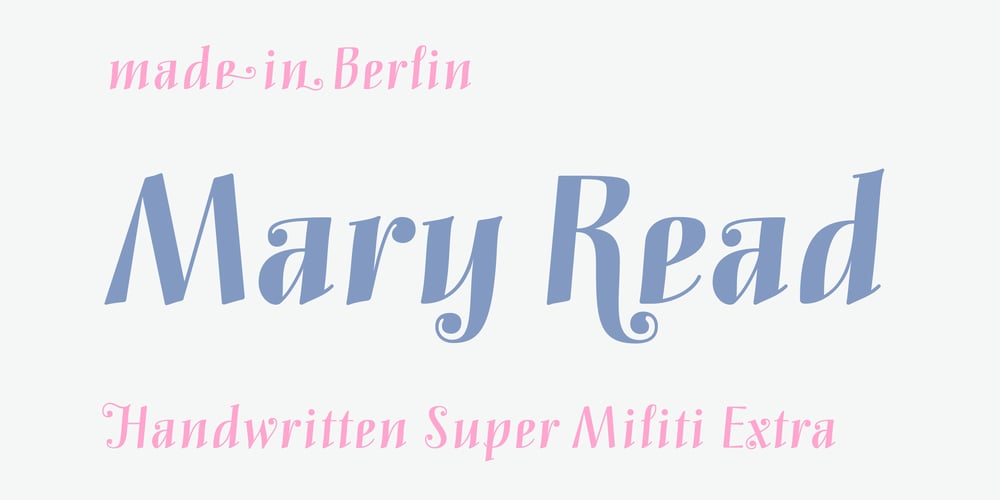
Mary Read Font Family was designed by Melli Diete and published by Melli Diete. Mary Read contains 4 styles and family package options. Mary Read is a modern handwritten Display Font, showing its fancy curves best in headlines as well as short texts. For typographic variety the typeface offers a range of features and extras. Give your texts a quite playful and handwritten note. Being chi chi is not a crime, don’t hesitate to pepper some sweetness in the midst of people’s attention.